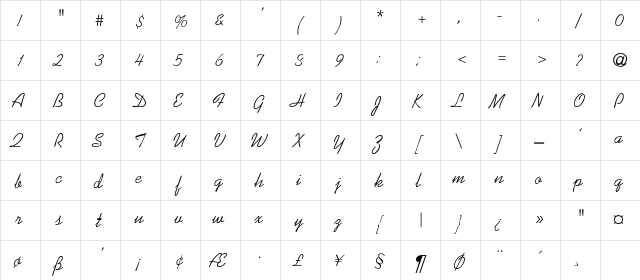
Fancy Kid Regular
Design Context for Fancy Kid Typeface
Fancy Kid is a composed and adaptable typeface that performs quietly and consistently across a wide range of design contexts.